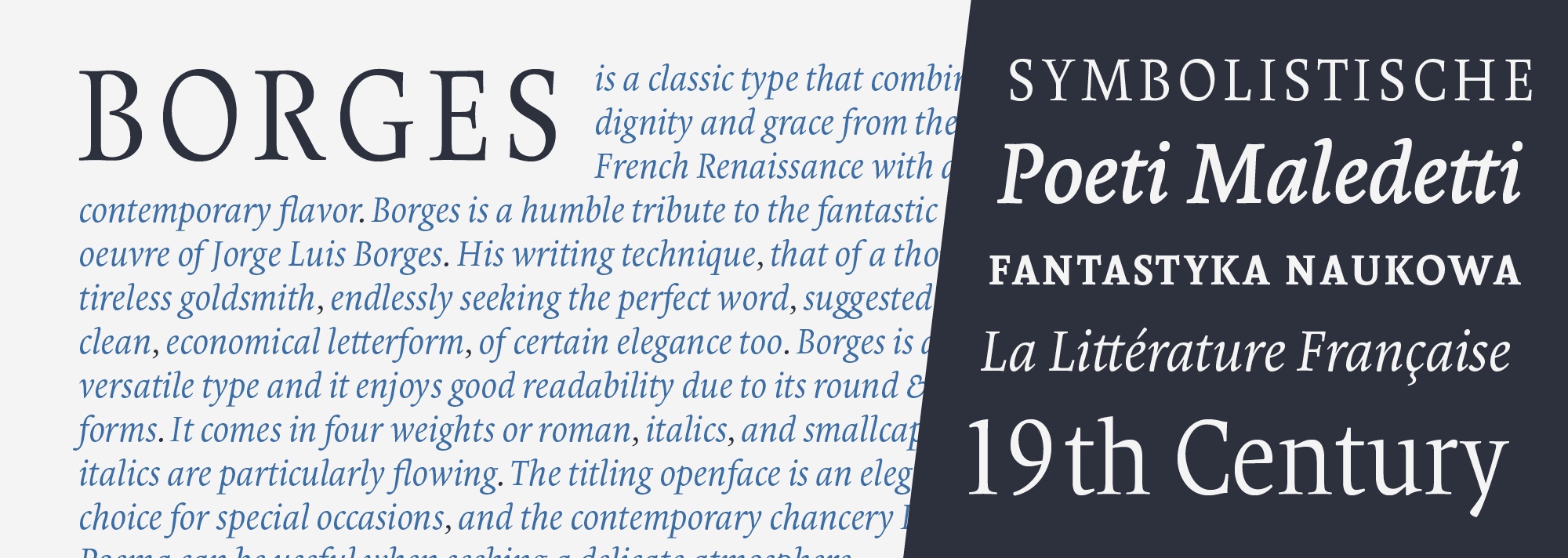
Borges Font
Borges Font is perfectly suited for literary publications, philosophical text designs, academic book layouts, poetry collections, intellectual magazine covers, scholarly journal presentations, library branding materials, literary award certificates, and contemplative editorial designs.
What makes Borges Font so exciting is its profound intellectual sophistication and literary elegance that perfectly honors the legacy of one of literature's greatest minds through every thoughtfully crafted letterform. This distinguished typeface embodies the depth and complexity of literary genius with its refined character shapes and classical proportions that evoke the timeless beauty of great literature and philosophical thought. The font's scholarly presence and artistic details create an atmosphere of intellectual authority and cultural refinement that resonates with readers and writers who appreciate the power of language and the beauty of written expression. Borges Font stands out through its ability to convey literary excellence, intellectual depth, and cultural sophistication, making it perfect for projects that need to establish scholarly credibility while celebrating the transformative power of literature and philosophical inquiry.
The Borges Font family includes Light, Regular, Medium, and Bold weights, each maintaining the font's distinctive literary character while providing design flexibility for various scholarly applications. The family also features classical ligatures, literary ornaments, and philosophical symbols that enhance the font's intellectual appeal and provide comprehensive solutions for sophisticated literary design projects.
The technical mastery of Borges Font includes an extensive character set with uppercase and lowercase letters, numerals, punctuation marks, and literary symbols that maintain the font's scholarly character. The font has been meticulously designed to ensure optimal reading comfort and visual appeal across both digital and print applications while preserving the sophisticated details that give it its distinctive intellectual character and literary authenticity.
Whether you're designing literary publications, creating academic materials, developing cultural branding, or crafting designs that require intellectual sophistication and literary excellence, Borges Font delivers the perfect combination of scholarly authority and contemporary functionality that makes your projects resonate with audiences who appreciate the profound beauty and transformative power of exceptional literature and philosophical thought.